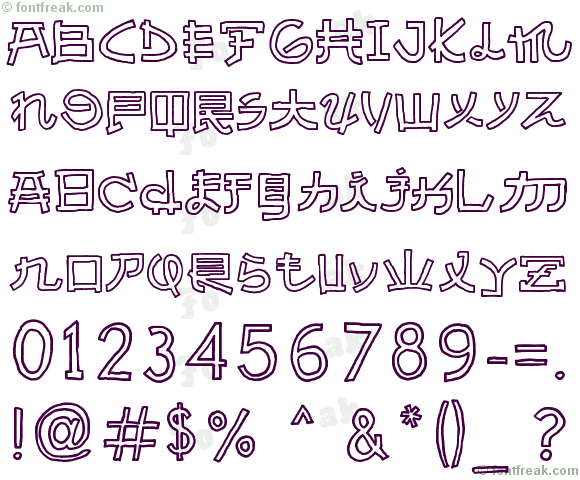
Almost Japanese Cartoon
About Almost Japanese Cartoon
The Almost Japanese Cartoon font by Galdino Otten Fonts is a unique display typeface that draws inspiration from Japanese aesthetics and cartoonish elements. This font features a playful, rounded design characterized by its bold stroke weight and minimal contrast, making it perfect for eye-catching applications. The spacing is well-balanced, allowing for easy readability while maintaining a lively and whimsical feel. Decorative elements are subtly integrated, enhancing the overall charm without overwhelming the viewer.
This font is ideal for various creative projects, particularly those that require a fun and engaging style. It works beautifully on children’s book covers, where its playful nature captures the imagination of young readers. Additionally, the Almost Japanese Cartoon font is perfect for restaurant menus, especially for establishments that embrace a quirky or casual dining atmosphere. It also shines in promotional materials for events such as comic conventions or anime festivals, where its unique flair can attract attention. Graphic designers will find it useful for creating vibrant social media graphics and marketing campaigns that aim to engage a youthful audience.